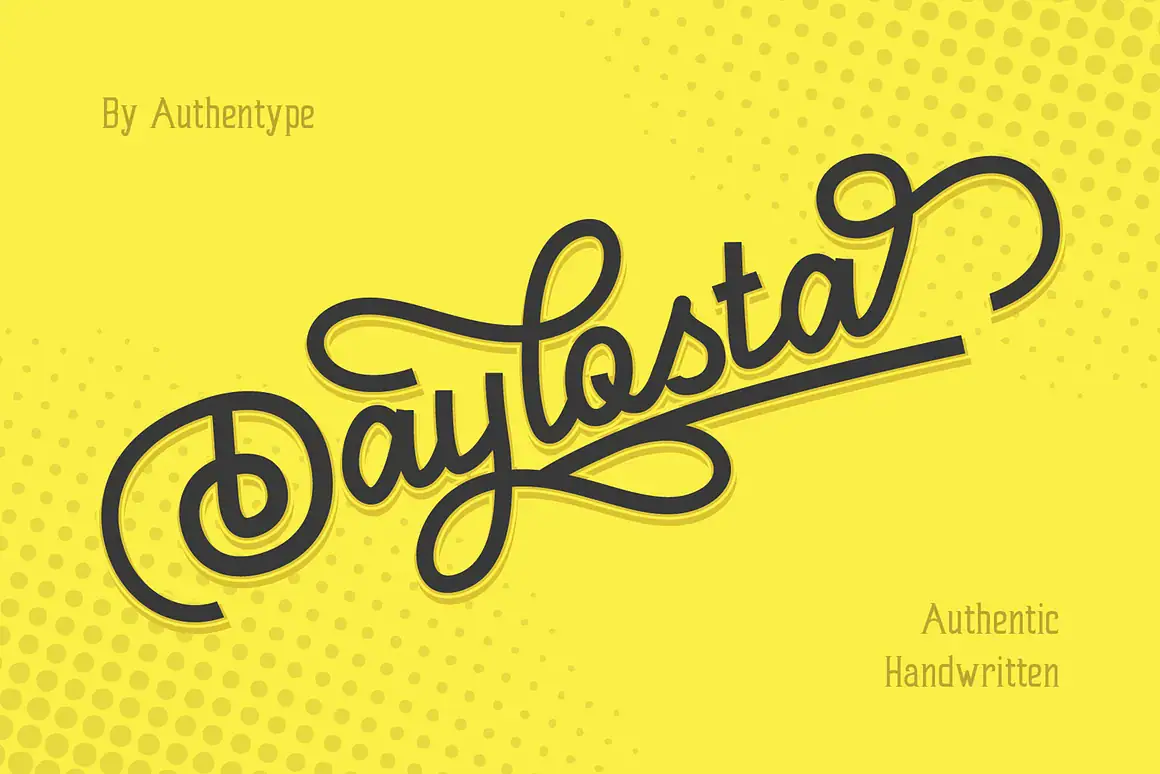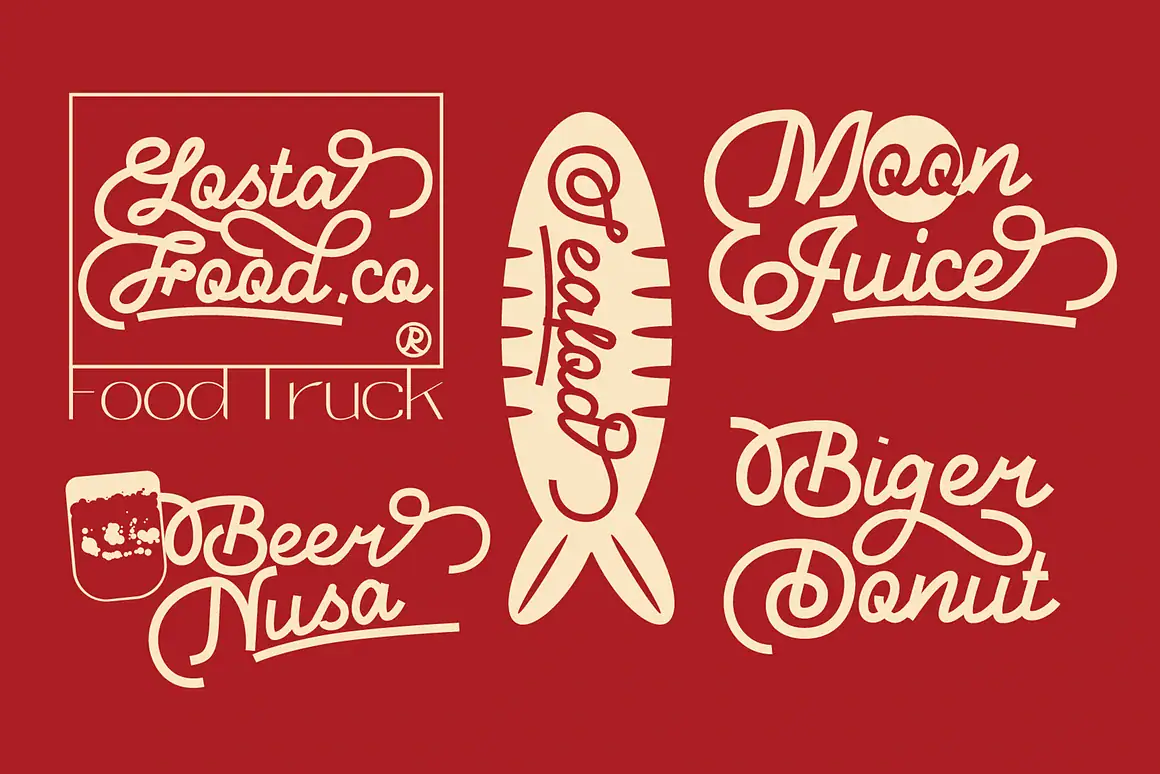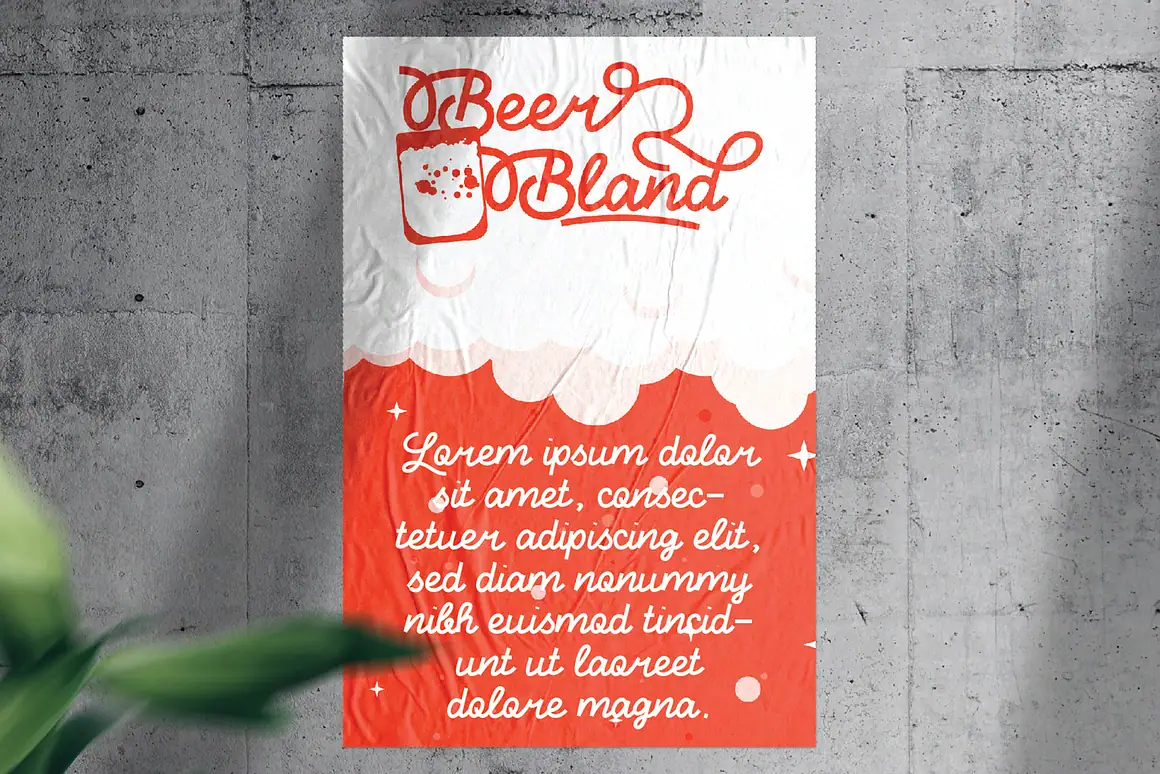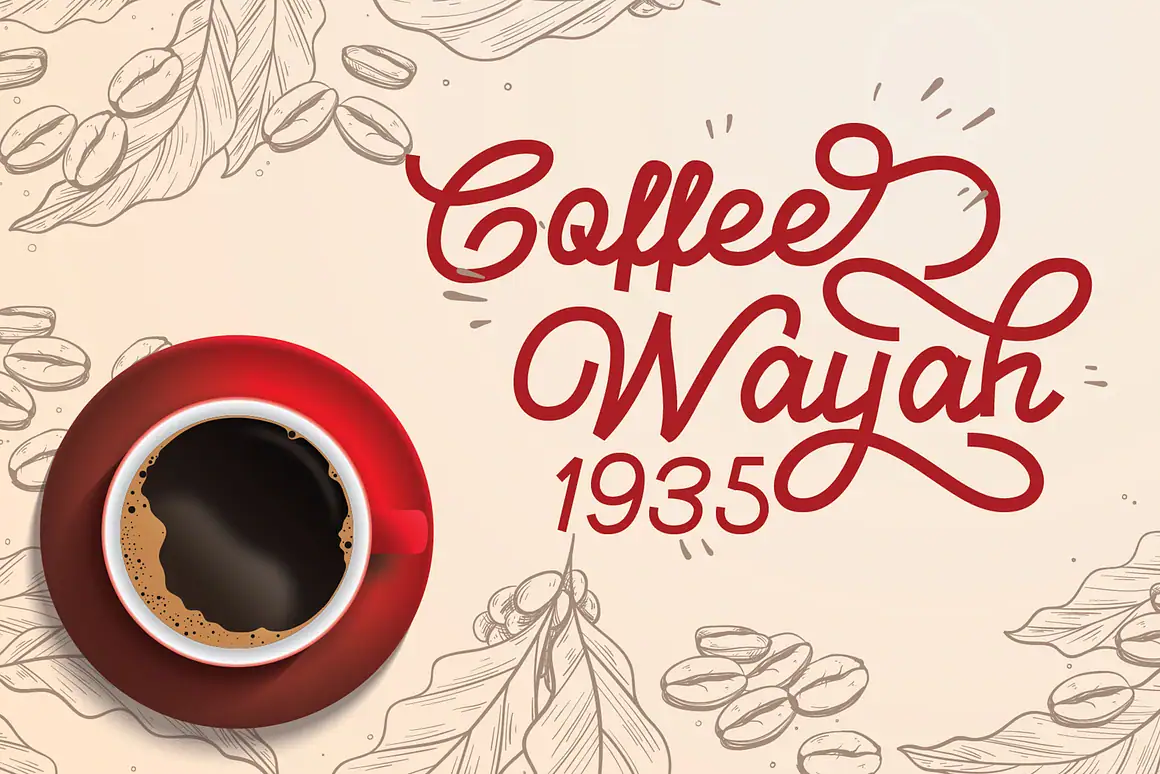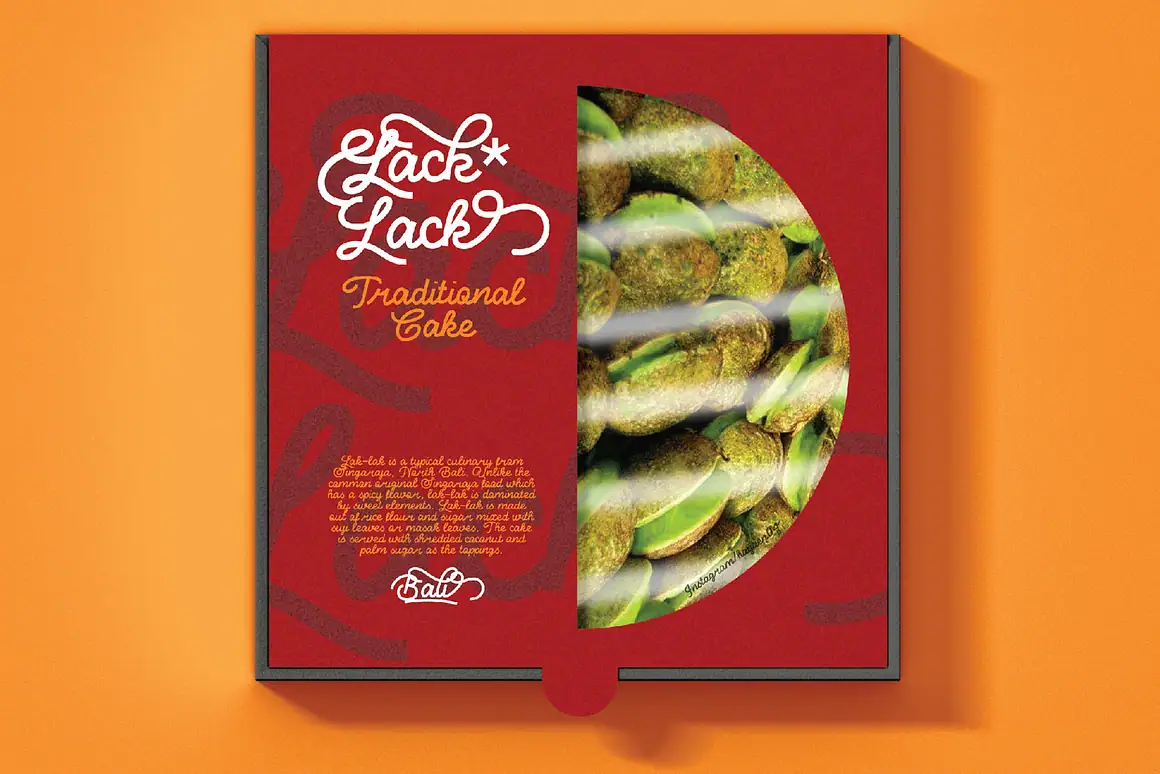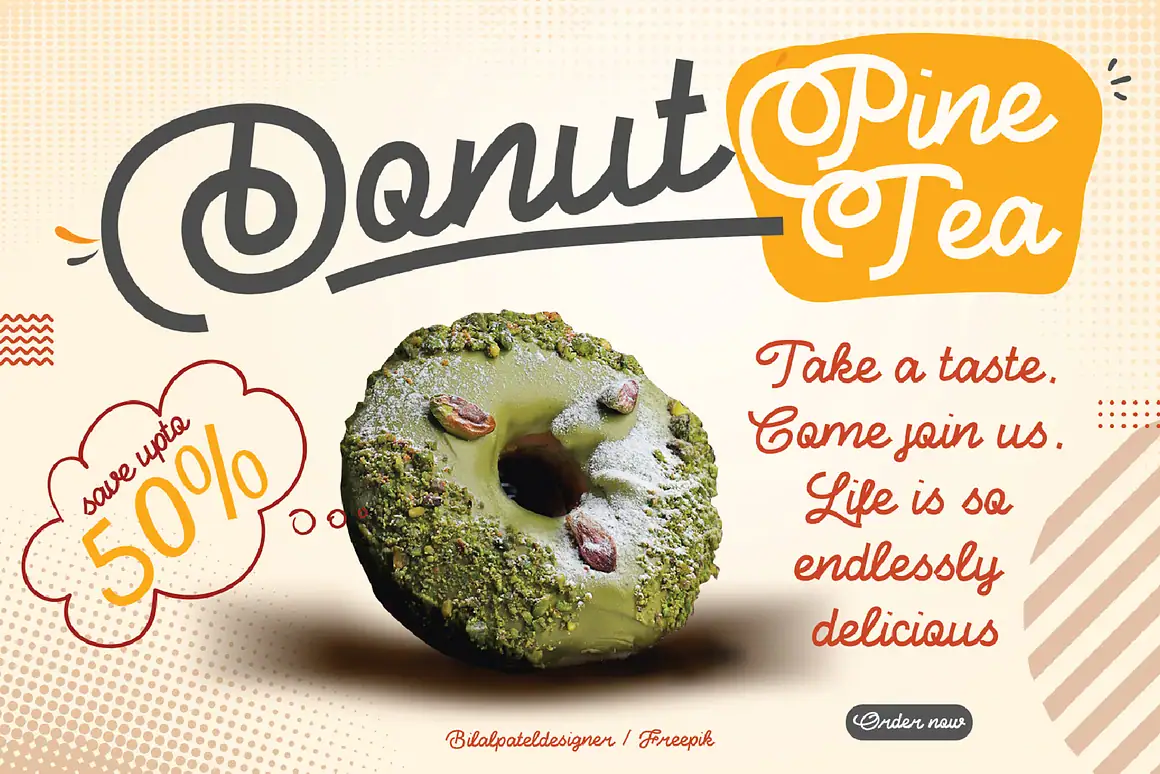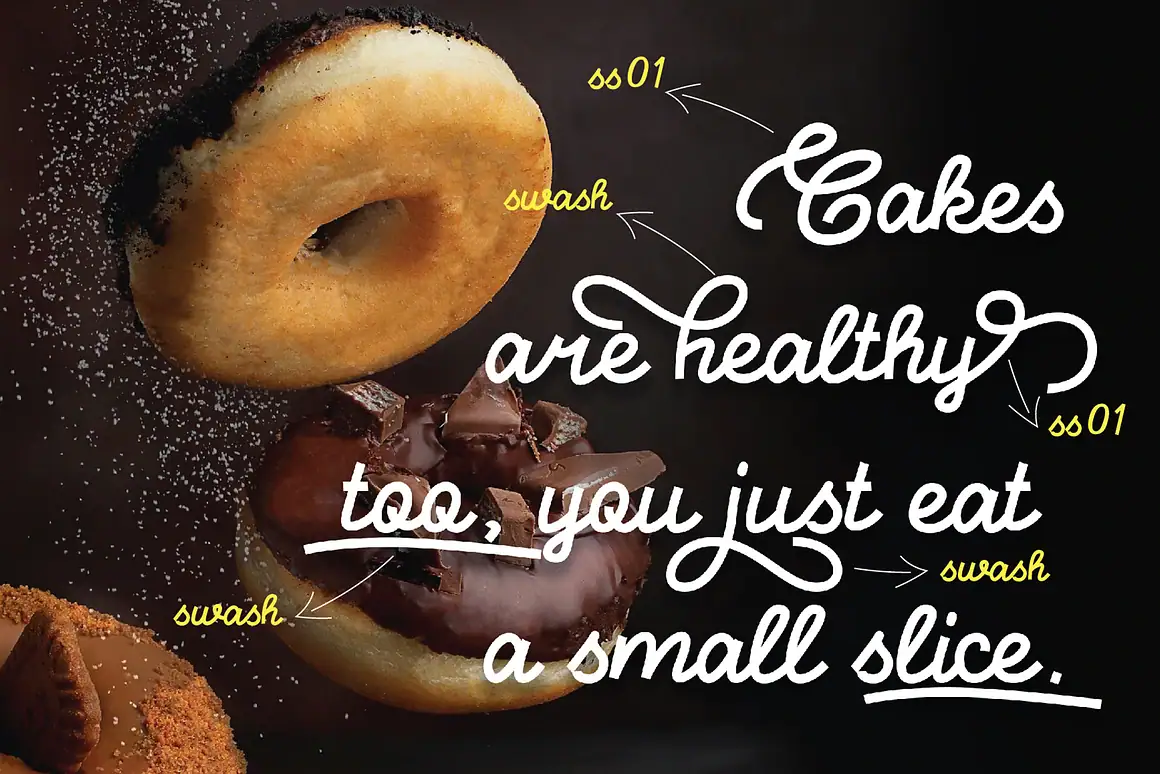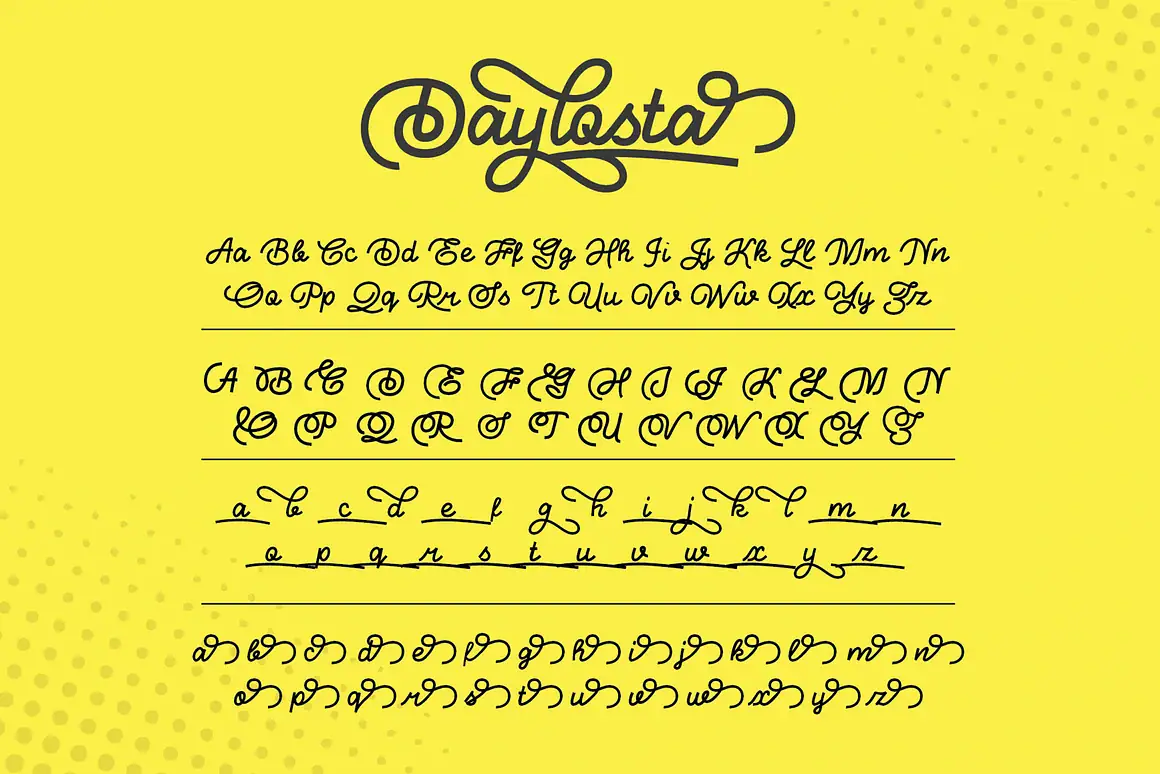
Daylosta Authentic Handwritten Font
Daylosta
Daylosta Authentic Handwritten Font created by AuthenType. This font features a classic and elegant style. The concept of font design for the food, drink, and cake industry leads to an energetic and creative youth market processing the taste and color of food.